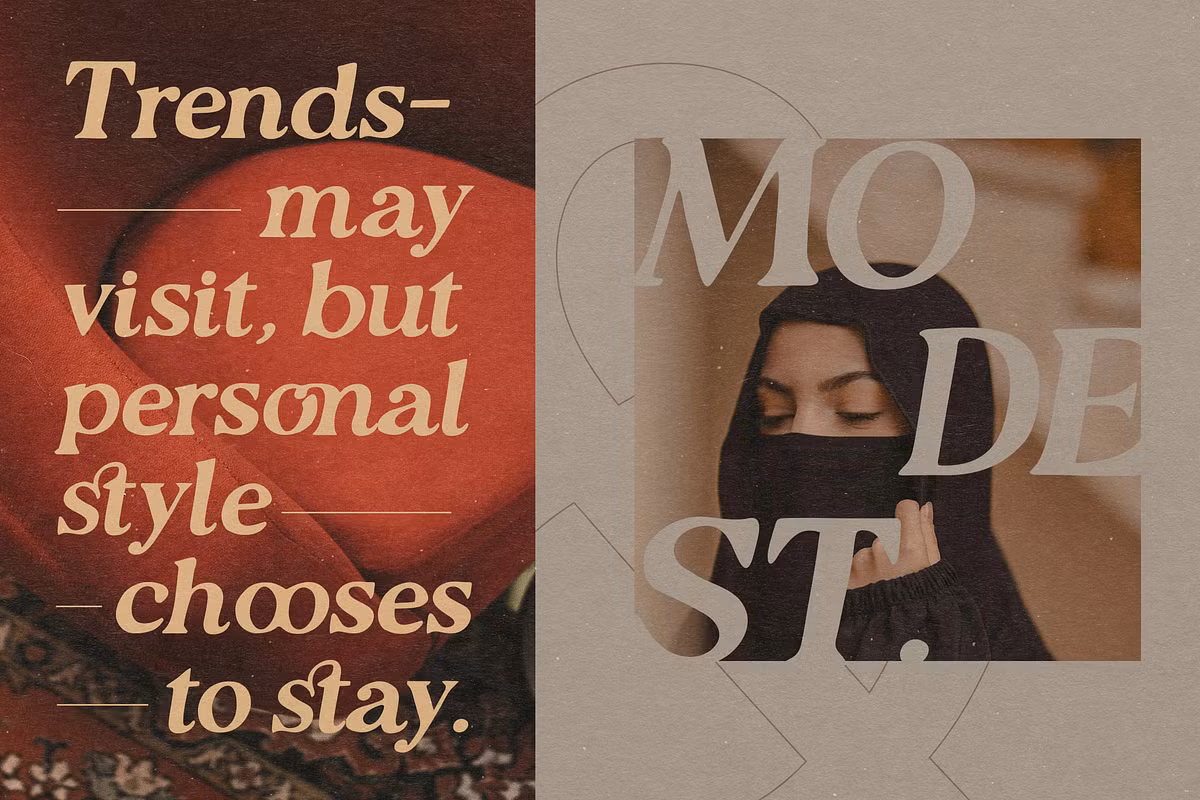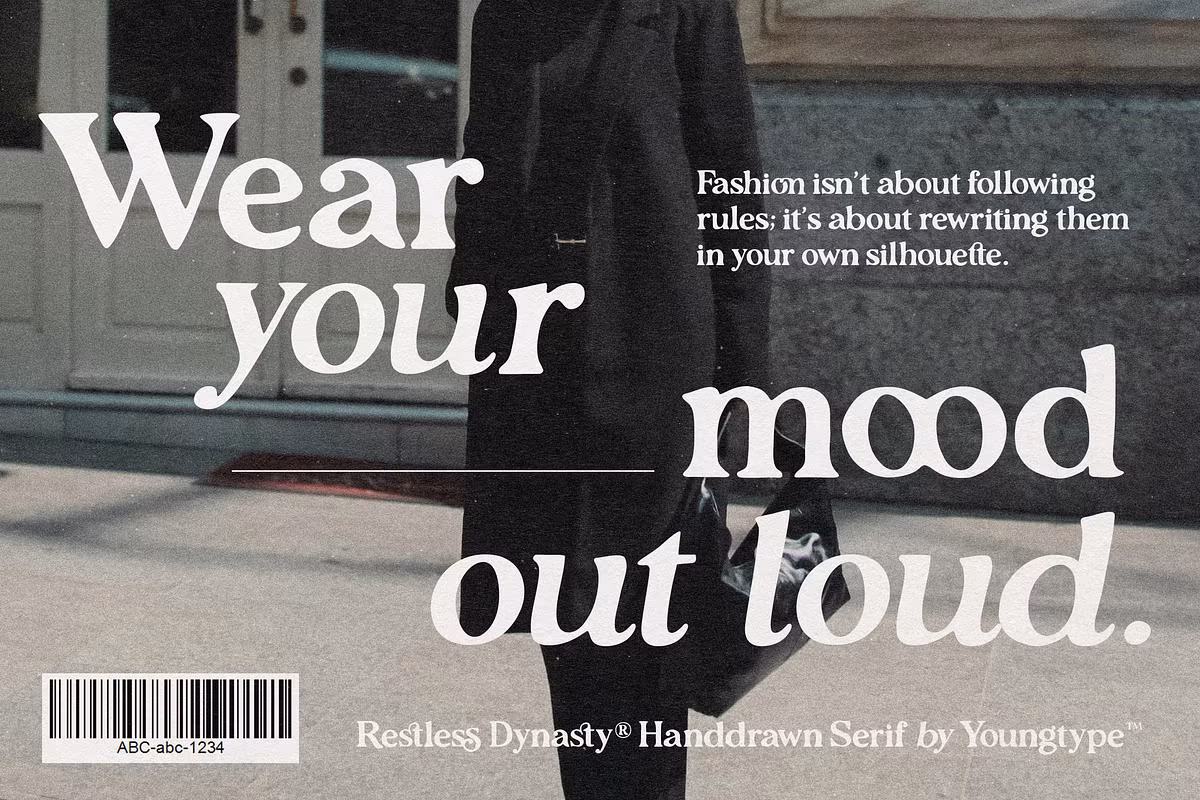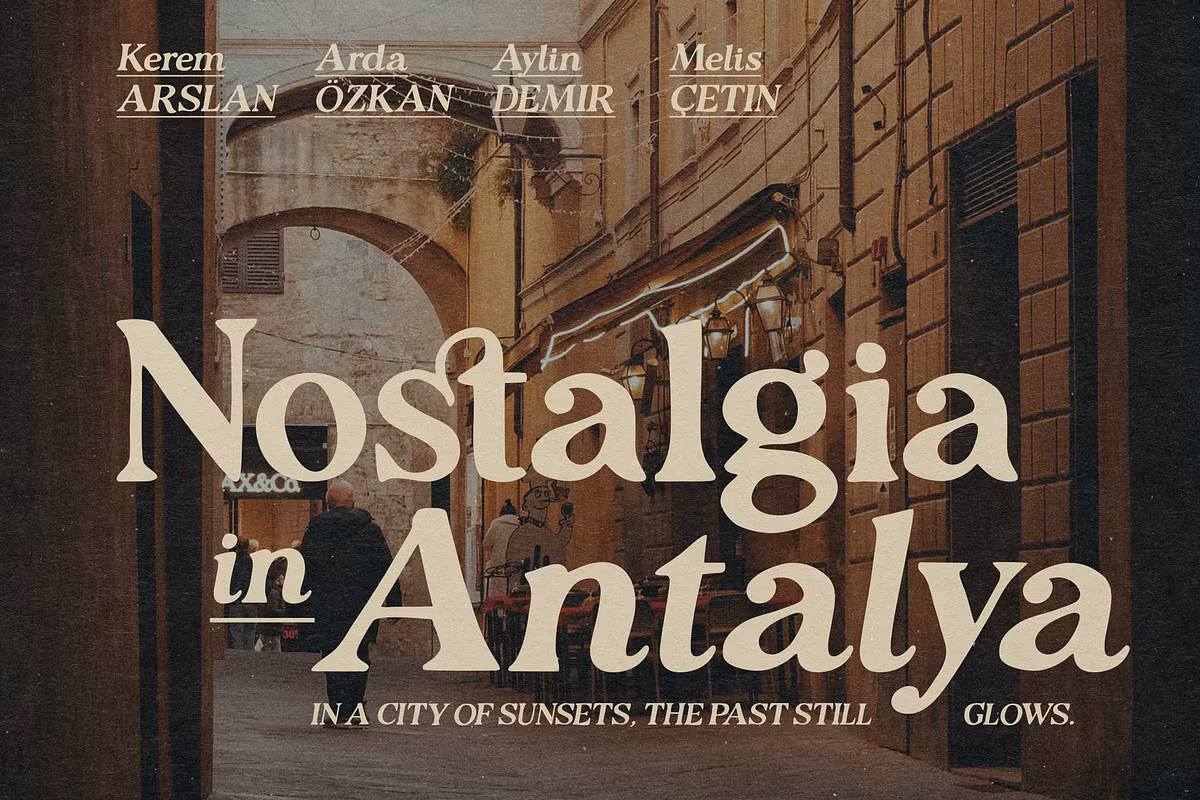
Restless Dynasty: Timeless Hand-Drawn Serif Typeface for Design
When it comes to typography, there are only a handful of fonts that can pull off being both elegant and unique. Restless Dynasty is a great example of this – it’s a serif font that’s been drawn by hand, giving it a really personal touch. What makes it special is the way it balances being stylish with being timeless. It’s not just a bunch of letters thrown together, it’s a way of expressing yourself through your writing, and it screams sophistication. Whether you’re looking to add some class to a project or just want a font that stands out from the crowd, Restless Dynasty is definitely worth considering. With its artistic feel and classic look, it’s a typeface that’s sure to make a statement.
The Restless Dynasty typeface embodies the romance of classical typography while embracing a bold, contemporary attitude. Each letterform is crafted with flowing curves and dramatic swashes that make the font feel alive. This hand-drawn quality adds an element of artistry that is often missing in more mechanical typefaces.
The way the font combines thick and thin lines makes it look really sophisticated, but also easy to read. It’s like the little imperfections in the design give it a warm, genuine feel that designers love. This mix of style and character makes it a popular choice for those looking for something a bit different. The unique touch it adds to a design is part of its appeal, making it stand out in a good way.
Character Sets
Restless Dynasty comes with a comprehensive character set that includes:
- Uppercase and lowercase letters
- Numerals
- Punctuation marks
- Ligatures that enhance the flow of text
- Alternates that provide additional design flexibility
- Multilingual support, accommodating various languages and typographic needs
The Restless Dynasty’s broad character set gives it a lot of flexibility, making it a great choice for many different kinds of design projects.
Use Cases
The versatility of Restless Dynasty makes it an excellent choice for various design projects. Here are some prominent use cases:
- Luxury Branding: The elegant curves and sophisticated character of the font make it perfect for luxury brands aiming to communicate exclusivity.
- Editorial Headlines: Whether in magazines or online publications, the dramatic presence of Restless Dynasty makes headlines pop and captures attention.
- Movie Posters: Eye-catching bold letters add excitement to movie posters, making stories more engaging.
- Heritage-Inspired Designs: This typeface beautifully reflects legacy and passion for projects requiring nostalgia.
These examples show how Restless Dynasty does more than just communicate – it shares a story that makes each word feel powerful, beautiful, and memorable.